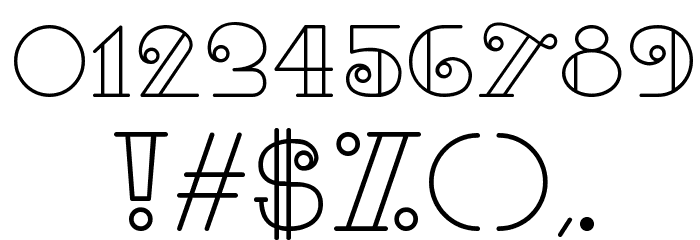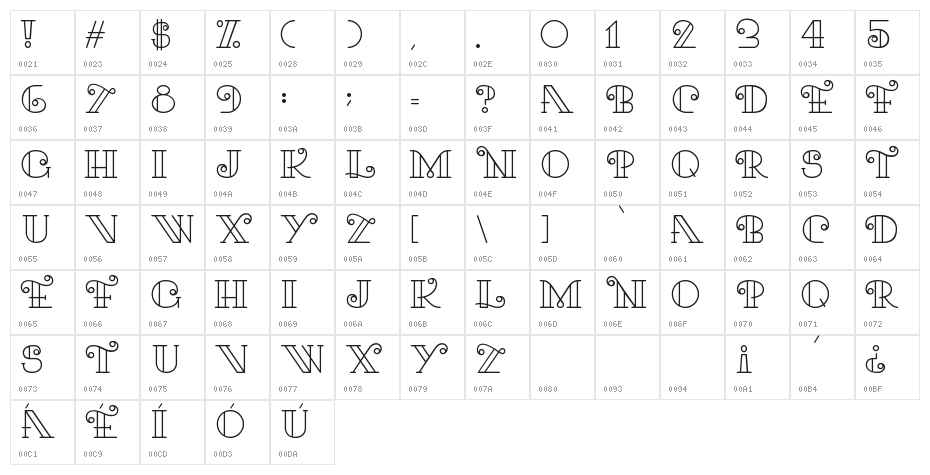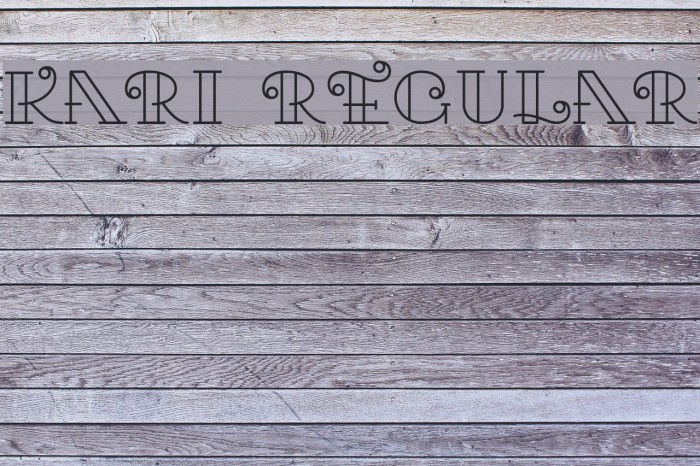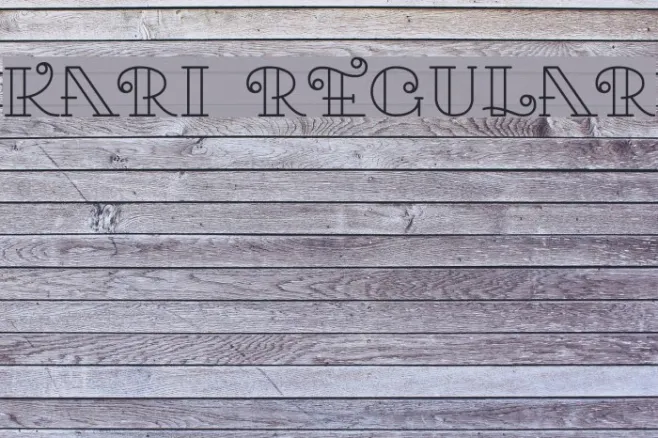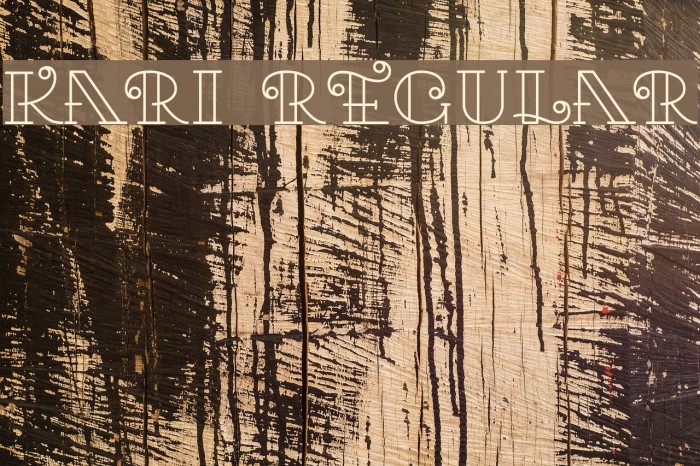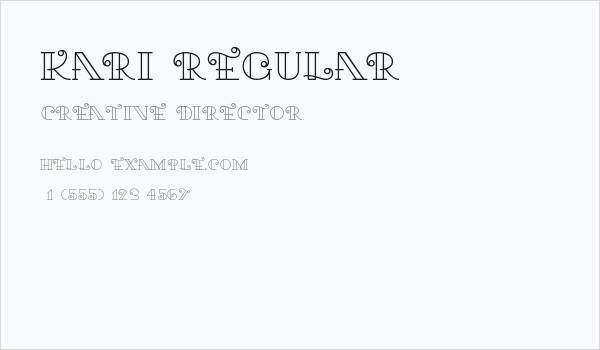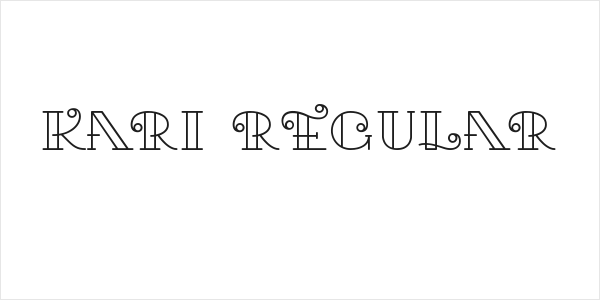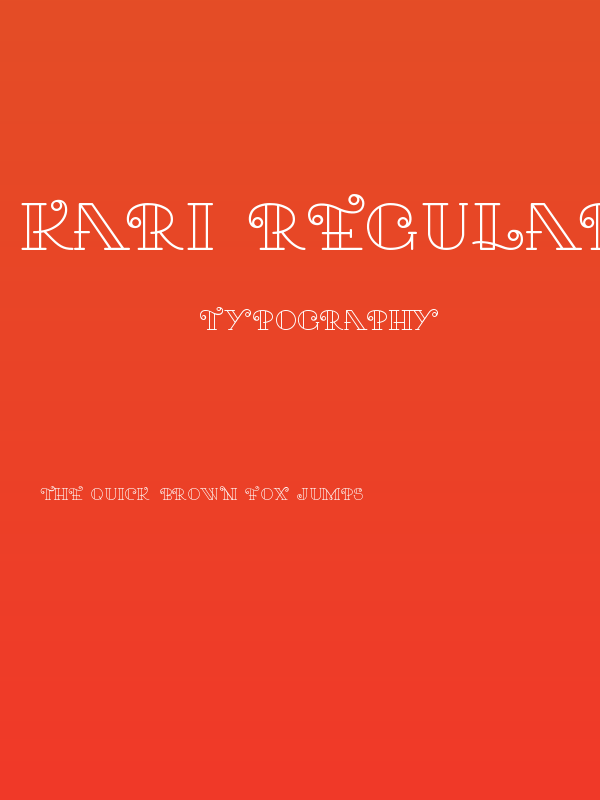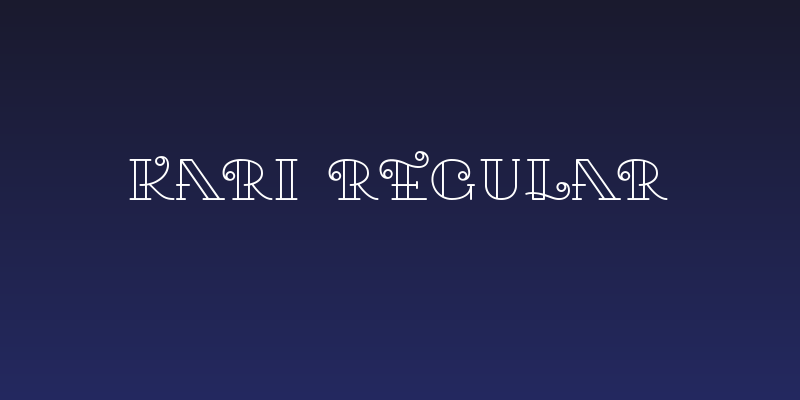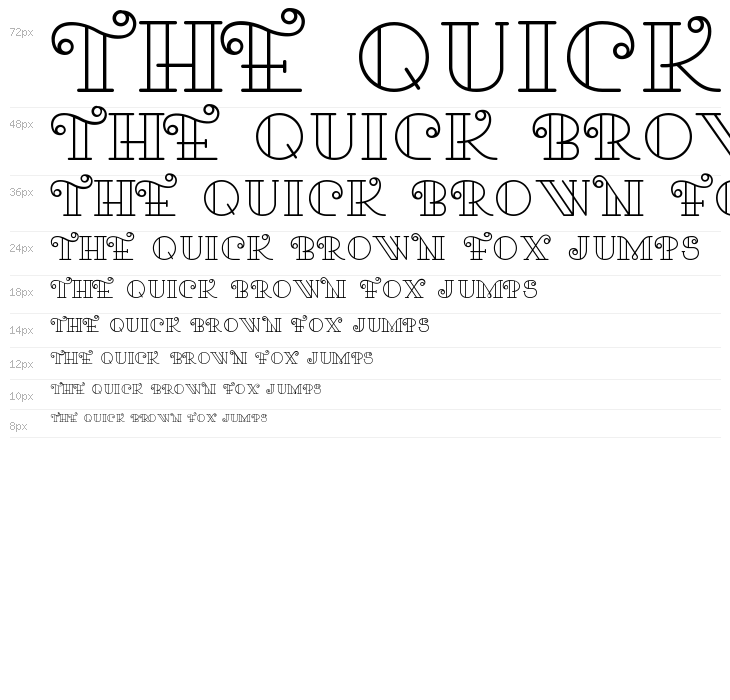
Kari Regular Font
Kari Regular Description
This font features a decorative and playful design with intricate swirls and curls integrated into each character. The uppercase letters are particularly ornate, with embellishments that add a whimsical touch. The lowercase letters maintain a similar style, ensuring consistency throughout the typeface. Numbers and special characters are designed with the same attention to detail, making them suitable for creative and artistic projects. The font's unique style makes it stand out, ideal for capturing attention in various design contexts.
Use CaseHeadlines, Logos, Artistic projects
Proposed ProjectsIdeal for invitations, greeting cards, posters, and branding projects that require a playful and artistic touch.